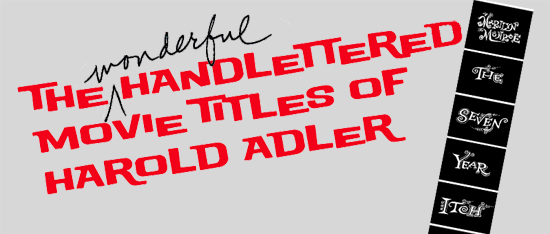
The Handlettered Movie Titles of Harold Adler
Here's a great opportunity to get a glimpse into the art of movie titles through the intriguing lettering work of Harold Adler.
From his work in the early silent movie days through to the current digital age, Adler worked with renown title designers such as Saul Bass and Paul Ferro helping to establish their unique, award-winning looks. Jill Bell, a native of Los Angeles acquainted with all of the aforementioned, will share many highly recognizable movie title clips and other art, wrapping them in historical context and anecdotes.